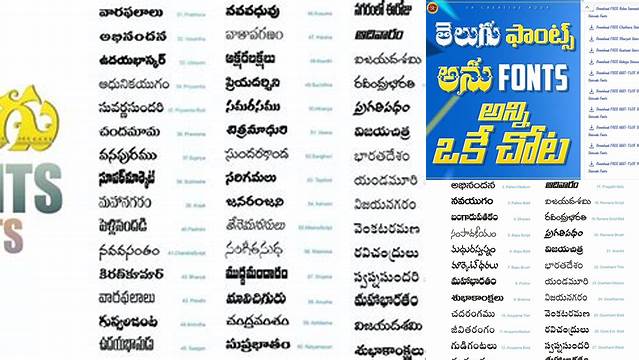
Hey guys! Looking for some awesome Telugu fonts? You're in the right place! I'm going to walk you through everything you need to know about the Anu Script Telugu fonts, including where to snag them for free (yup, free!), how to download them as TTF files, and how to get them working on your computer. Let's dive in and get those Telugu words looking fantastic! Anu Script Telugu fonts are essential for anyone working with the Telugu language, whether you're a blogger, designer, student, or just someone who loves writing in Telugu. The Anu Script is a popular choice, known for its clarity and readability. So, let's get started!
H2: What Exactly is Anu Script? Why Choose it for Telugu?
Alright, before we jump into the download, let's get a handle on what Anu Script actually is. Basically, Anu Script is a specific set of fonts designed for the Telugu language. It's been around for a while and has become a go-to option for many people because of its ease of use and how well it renders Telugu characters. Think of it like this: just as you have different English fonts like Arial or Times New Roman, Anu Script is a family of fonts specifically tailored for Telugu. The creators of the Anu Script aimed to provide a set of fonts that are both visually appealing and technically sound, ensuring that the complex glyphs and ligatures of Telugu are displayed correctly.
Why choose Anu Script over other Telugu fonts? Well, first off, it's incredibly user-friendly. The font files are generally easy to install on both Windows and macOS systems, and you'll find that your software, from Microsoft Word to design programs, will recognize them without any issues. Furthermore, Anu Script fonts are well-regarded for their readability. They're designed to make the Telugu script clear and legible, even at smaller font sizes, which is a huge deal if you're writing a lot of text or designing something where space is limited. There are a variety of styles available, so you can choose the perfect look for your project, whether you need something formal, casual, or creative. Another advantage is the wide availability and compatibility. You can find these fonts online, often for free (more on that in a bit!), and they work seamlessly with different software and operating systems.
Finally, Anu Script has a good reputation within the Telugu-speaking community. It is a widely accepted standard. This means if you're working on something that needs to be shared, chances are people will be able to see the font correctly. No weird boxes or corrupted text! So, in short, if you want a reliable, readable, and easily accessible set of Telugu fonts, Anu Script is a solid choice.
H3: Advantages of Using Anu Script Telugu Fonts
Using Anu Script Telugu fonts comes with a bunch of cool advantages, making your Telugu text look great and work smoothly. First off, the biggest benefit is definitely readability. Telugu script can be complex, with lots of curves and unique characters. Anu Script fonts are designed to handle these nuances, ensuring that the letters are clear and easy to understand, no matter the font size. This is super important whether you're writing a blog post, creating educational materials, or just sending an email to family. Another perk is the wide range of styles available. You can find different versions of Anu Script, from classic and formal to modern and playful. This means you can pick the perfect font to match the tone of your writing or design project.